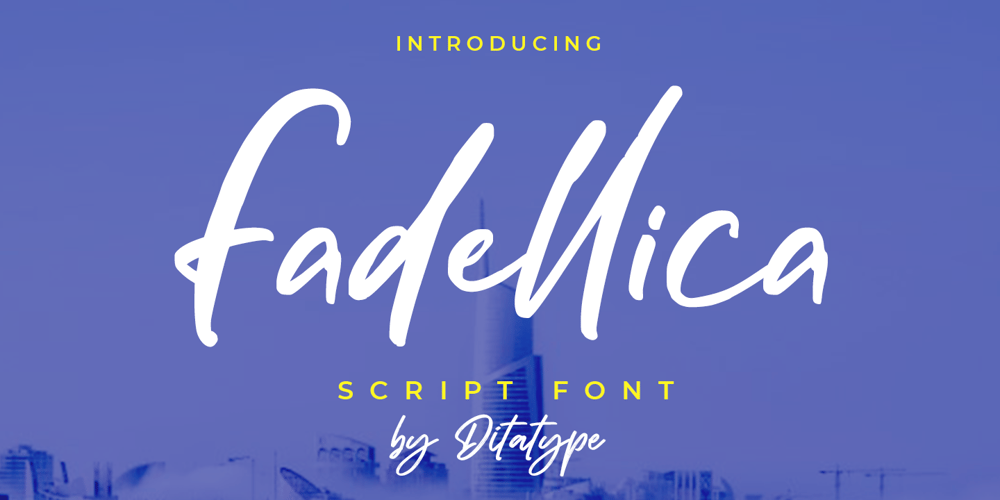
Fadellica
Fadellica font
Fadellica Font Family was designed by Donis Miftahudin and published by Ditatype. Fadellica contains 1 styles and family package options. Fadellica is a handwritten font. Made for any professional project branding that need a modern and attractive typeface. It is the best for logos, branding and quotes. Every letter has a unique and beautiful touch.Features: Beautiful Ligatures Multilingual Support PUA Encoded Numerals and Punctuation Thank you for downloading premium fonts from Dita Type